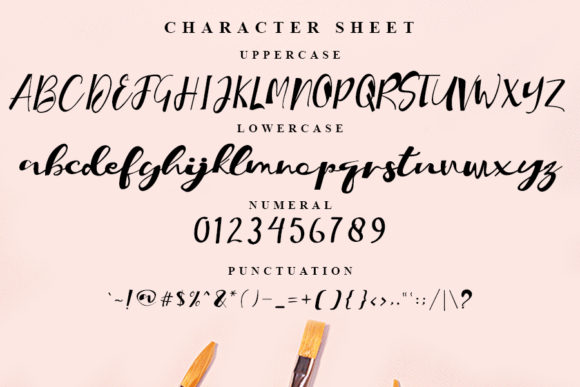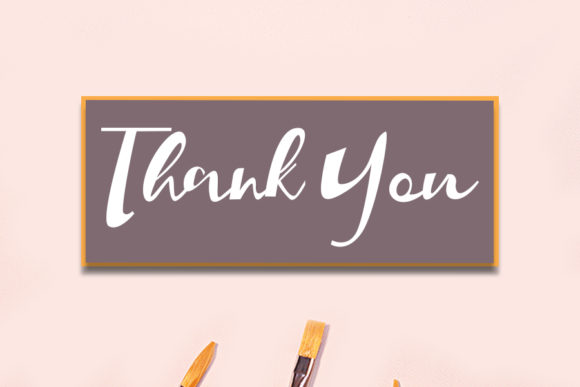
Bellarosa Font: The Perfect Choice for Romantic Designs
Are you looking for a font that can add a touch of romance and festivity to your designs? Look no further than Bellarosa Font! This beautiful script font is designed to make your Valentine’s Day designs, crafts, and projects stand out. In this article, we’ll take a closer look at Bellarosa Font, its features, and how you can use it to create stunning designs.
What is Bellarosa Font?
Bellarosa Font is a flowing and merry script font that is perfect for creating romantic and festive designs. It was designed to be the go-to font for Valentine’s Day designs, but its versatility makes it suitable for a wide range of projects, including crafts, invitations, and more.
Key Features of Bellarosa Font
- PUA Encoded: Bellarosa Font is PUA (Private Use Area) encoded, which means you can access the available glyphs and swashes with ease. This feature makes it easy to use the font and customize your designs.
- Flowing and Merry: The font has a flowing and merry feel to it, making it perfect for creating romantic and festive designs.
- Script Font: Bellarosa Font is a script font, which means it has a beautiful, handwritten look that’s perfect for adding a personal touch to your designs.
How to Use Bellarosa Font
Using Bellarosa Font is easy! Here are a few ways you can use it to create stunning designs:
- Valentine’s Day Designs: Use Bellarosa Font to create romantic Valentine’s Day designs, such as greeting cards, invitations, and social media graphics.
- Crafts: Add a personal touch to your crafts, such as scrapbooking, journaling, and paper crafting, with Bellarosa Font.
- Invitations: Use Bellarosa Font to create beautiful invitations for weddings, baby showers, and other special occasions.
Benefits of Using Bellarosa Font
Here are just a few benefits of using Bellarosa Font:
- Unique and Eye-Catching: Bellarosa Font is a unique and eye-catching font that will make your designs stand out.
- Easy to Use: The font is easy to use, even for those who are new to design.
- Customizable: With PUA encoding, you can access the available glyphs and swashes to customize your designs.
Tips for Getting the Most Out of Bellarosa Font
Here are a few tips for getting the most out of Bellarosa Font:
- Experiment with Different Sizes: Try using Bellarosa Font in different sizes to create visual interest and hierarchy in your designs.
- Pair with Other Fonts: Pair Bellarosa Font with other fonts to create a unique and interesting look.
- Use Swashes and Glyphs: Take advantage of the PUA encoding and use the available swashes and glyphs to add a personal touch to your designs.
Bellarosa Font is a beautiful and versatile script font that’s perfect for creating romantic and festive designs. With its PUA encoding, flowing and merry feel, and script font style, it’s the perfect choice for designers and crafters looking to add a touch of elegance and whimsy to their projects. Whether you’re creating Valentine’s Day designs, crafts, or invitations, Bellarosa Font is sure to make your designs stand out.